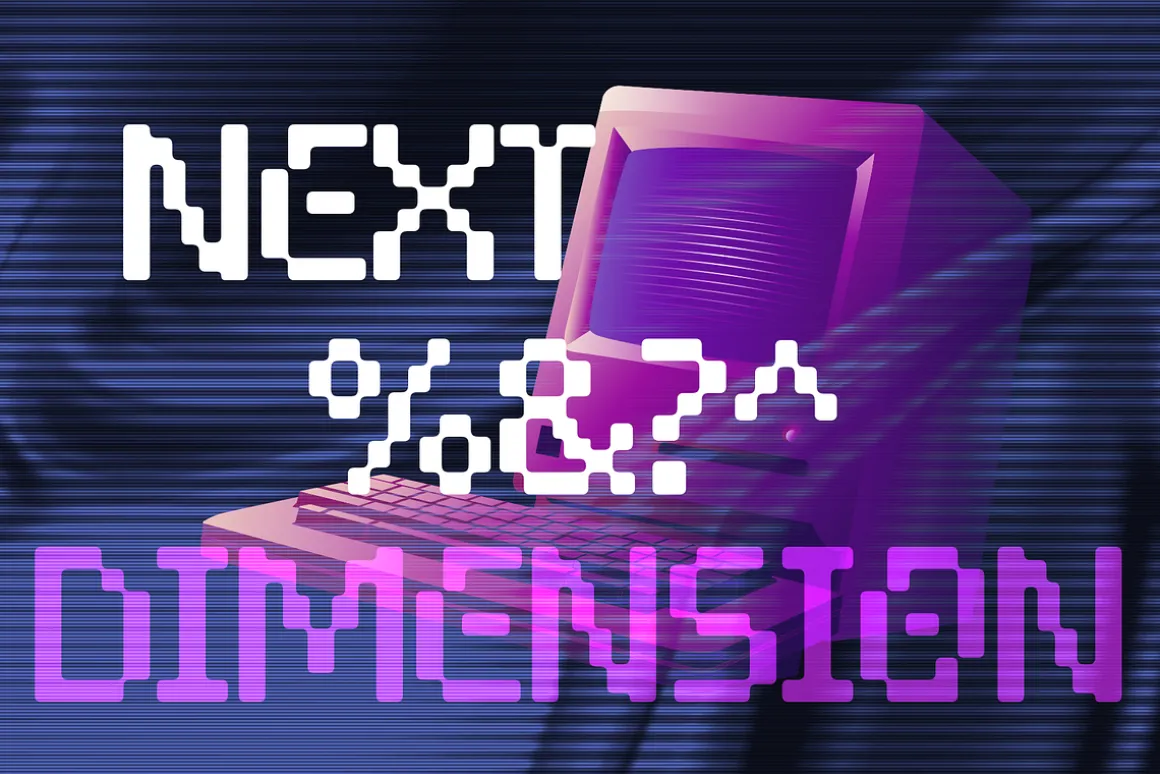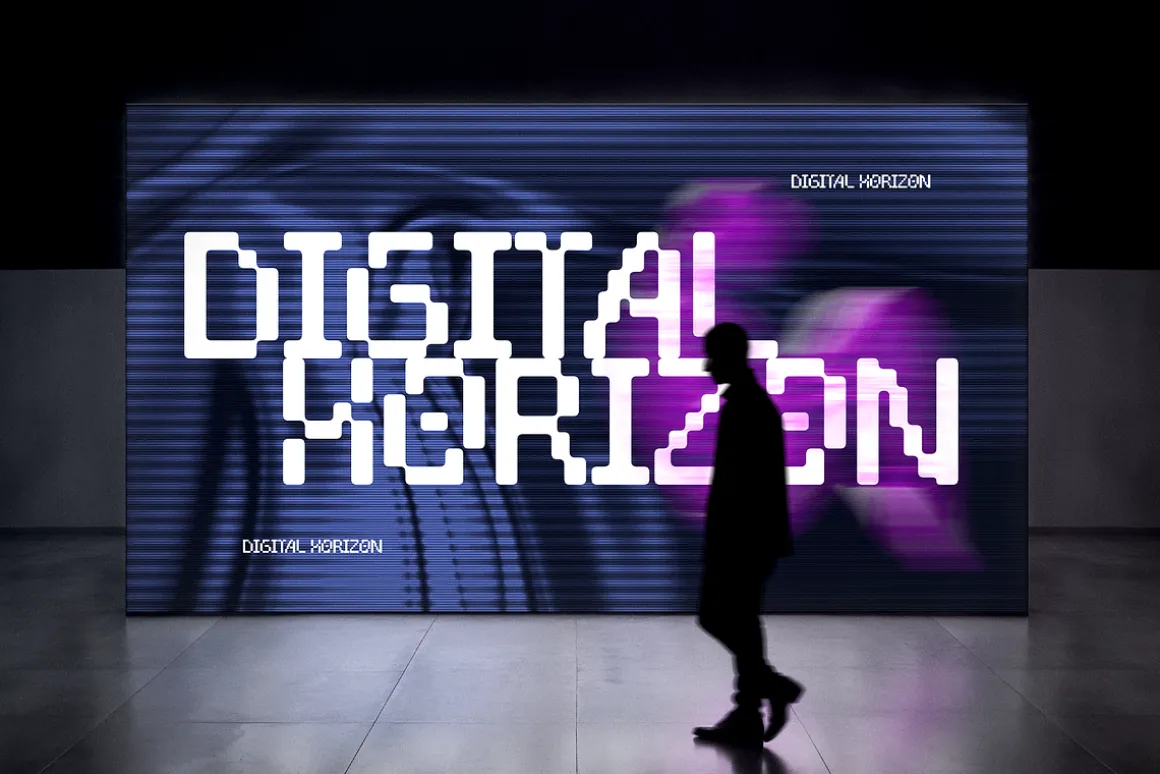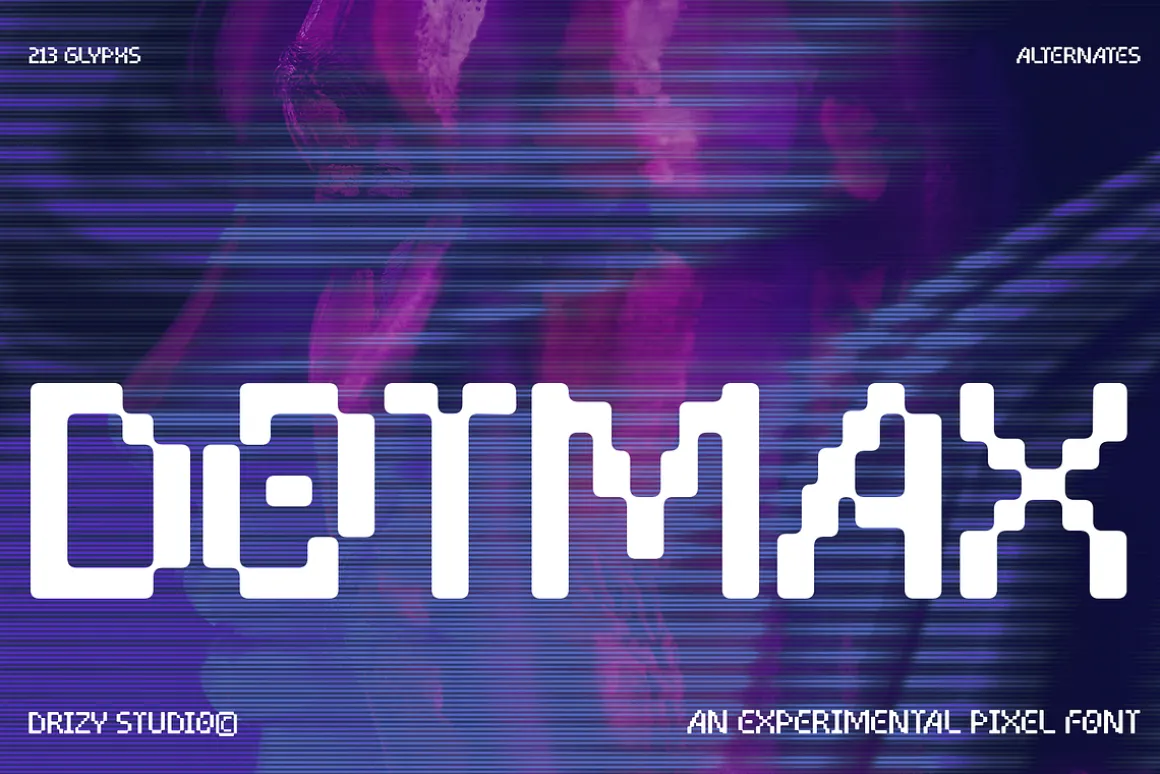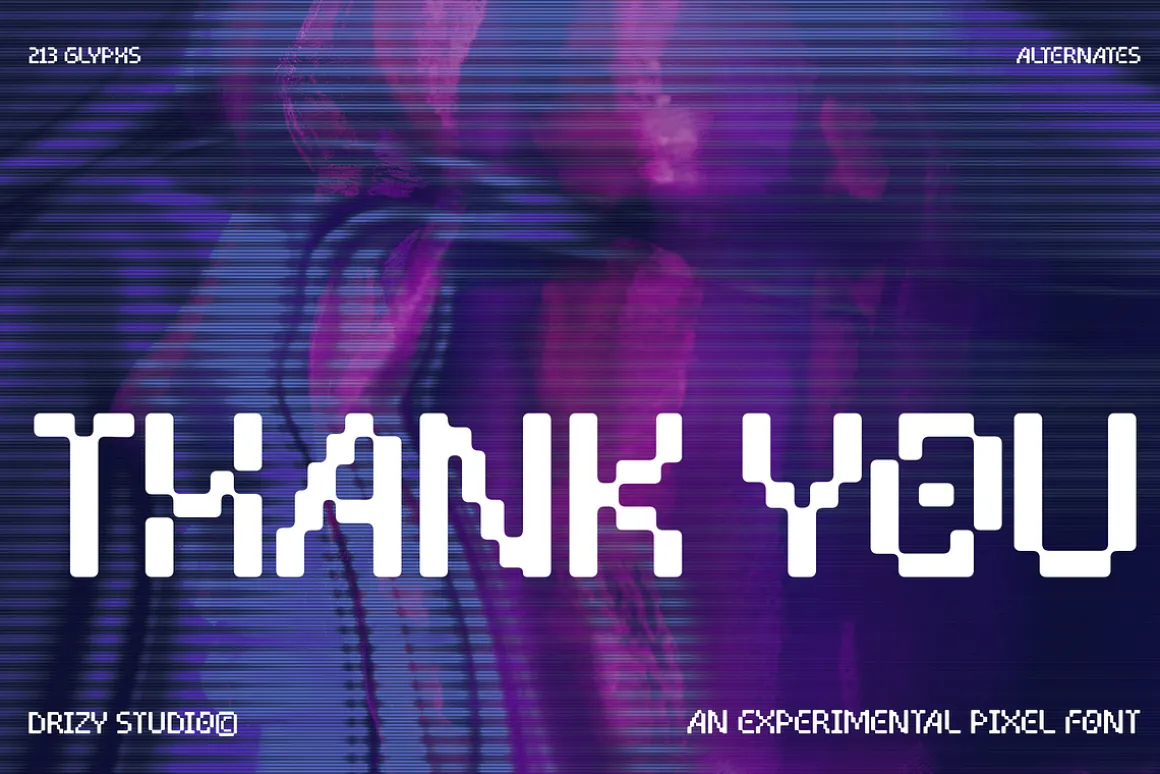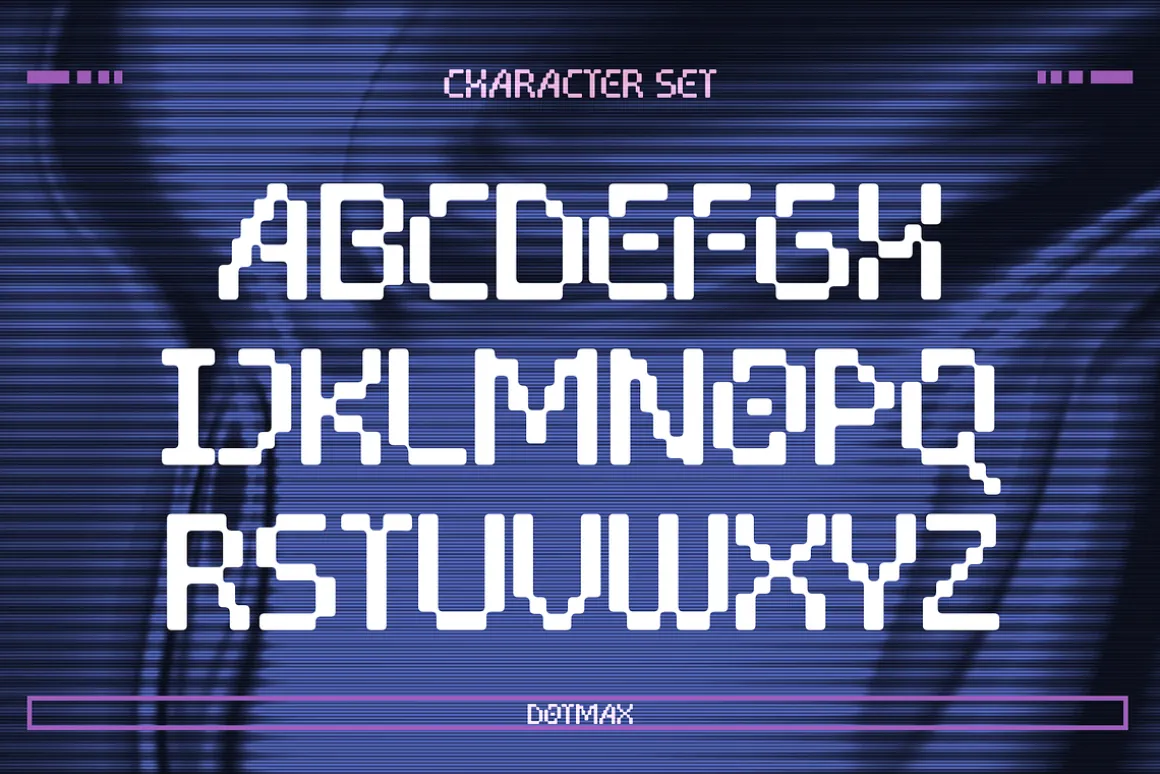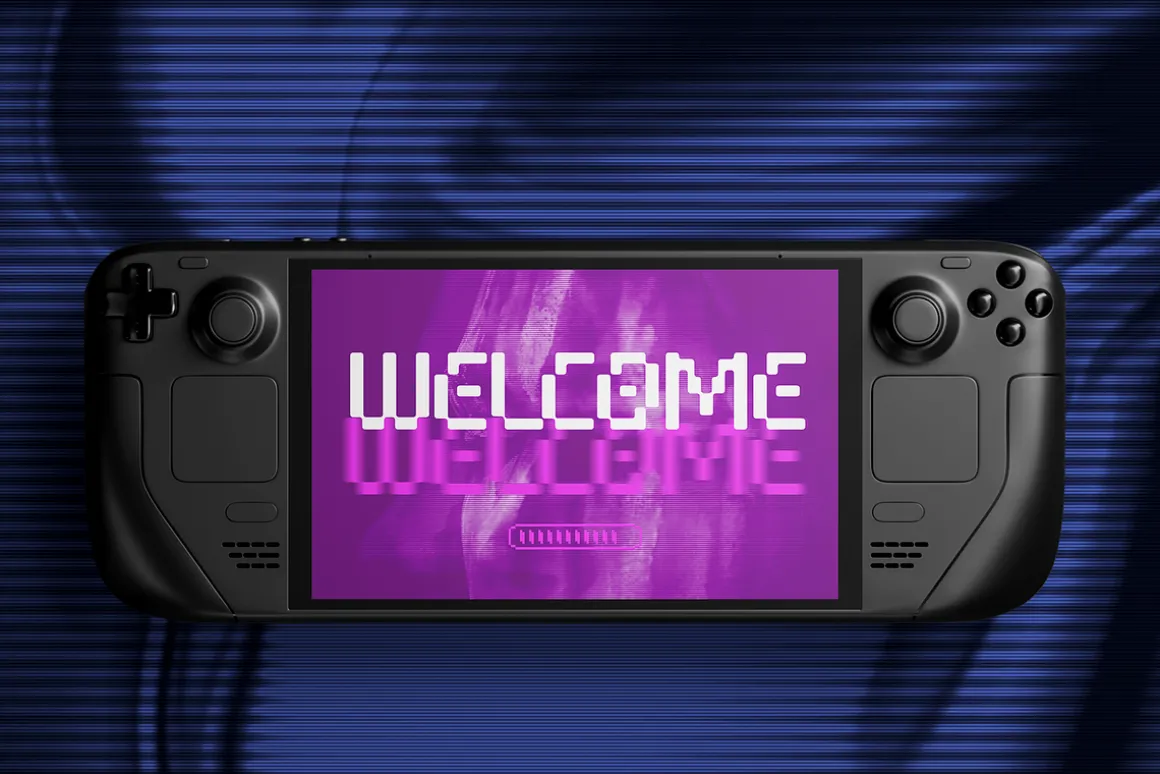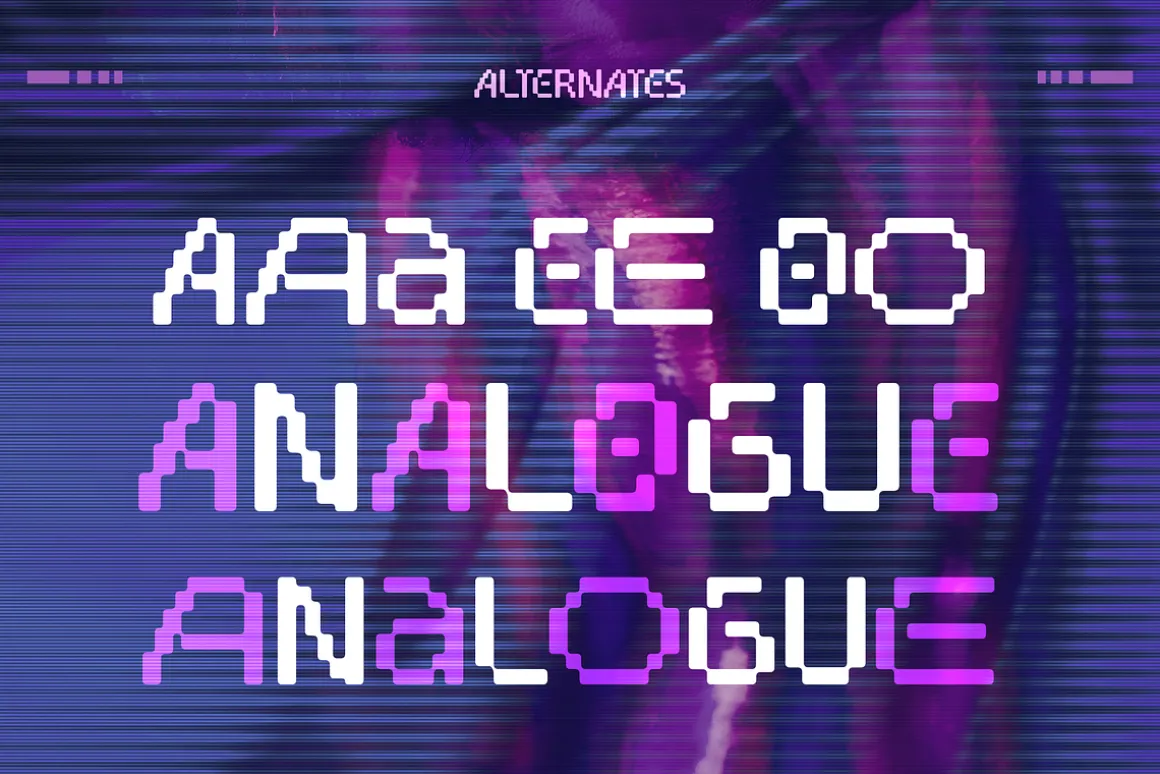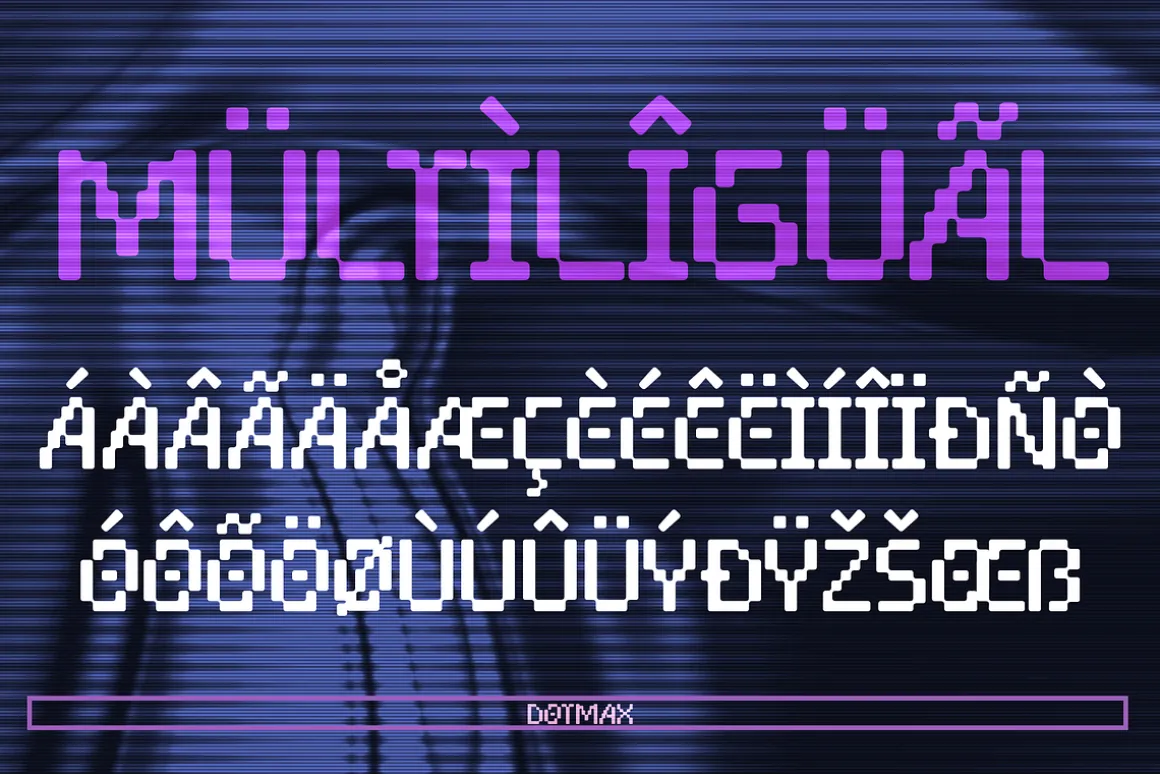
Dotmax – Random Pixel Font
Dotmax – Random Pixel Font is a quirky and modern typeface made from scattered pixel dots, giving your text a fun, digital-inspired look. With its unique random pixel font arrangement, this font adds a playful glitchy touch that’s perfect for retro games, tech posters, futuristic branding, and creative digital projects.
Dotmax – Random Pixel Font features:
- Uppercase & Lowercase
- Punctuation & Numbers
- Multilingual
- Ligatures
- Alternate